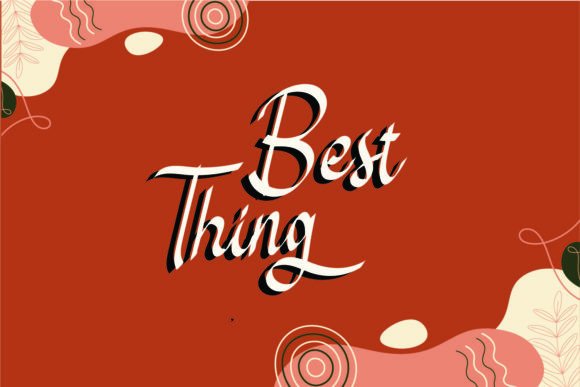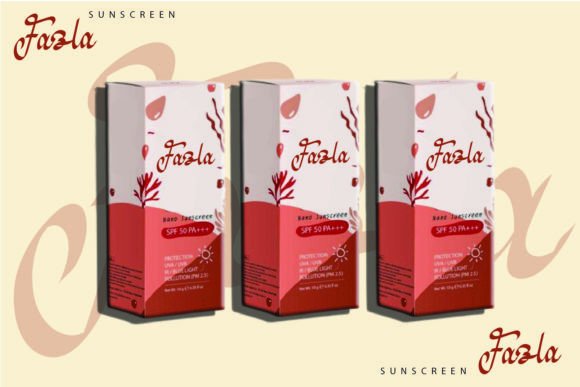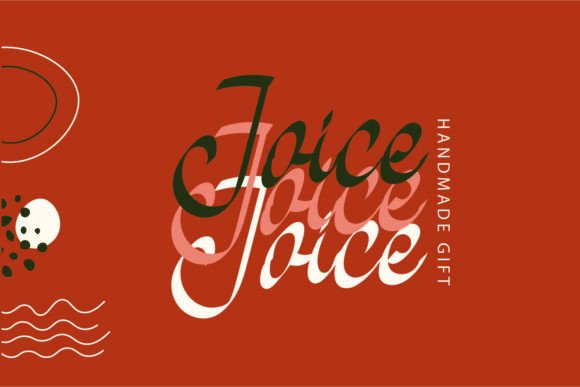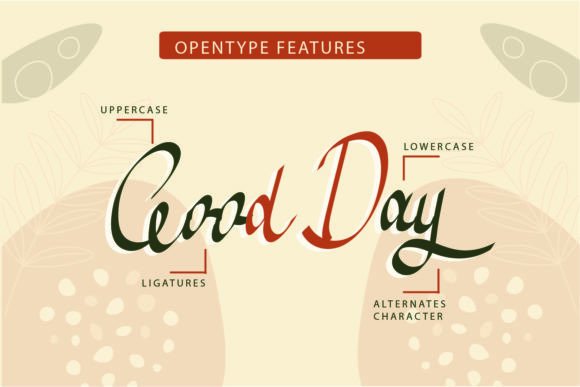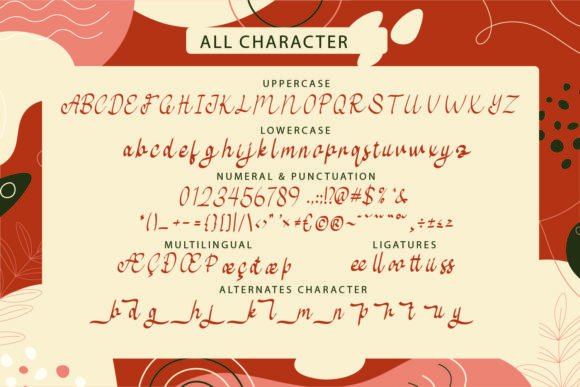
Introduction to Coopucake Font
Remember that moment when you’re brainstorming ideas for a creative project and you stumble upon the perfect design element that makes everything come together? It’s like a spark of inspiration that sets your imagination ablaze. For designers, finding that elusive element can be a game-changer. And today, we’re excited to introduce you to a game-changing design resource – the Coopucake Font.
With its modern and cool handwritten script style, the Coopucake Font is an absolute showstopper. Its incredibly distinct and timeless design makes it the perfect choice for adding a touch of elegance and sophistication to your designs. Whether you’re working on a branding project, a social media campaign, or a digital product, the Coopucake Font is sure to elevate your creative project to the next level.
Key Features of Coopucake Font
- The Coopucake Font is a high-quality, free design resource ideal for creative projects, offering a unique and playful touch.
- Available in a transparent background, making it easy to integrate into various design elements.
- Features a large character set, including uppercase and lowercase letters, numbers, and special characters.
- Coopucake Font is designed to be highly customizable, allowing designers to easily adjust the font’s appearance to suit their creative project’s needs.
Honest Review: Coopucake Font
I recently stumbled upon the Coopucake Font, and I’m excited to share my thoughts on this design resource. As a designer, I’m always on the lookout for high-quality fonts that can elevate my creative projects.
The Coopucake Font is a free download, which is a major plus in my book. I love that the creator has made this beautiful font available to the design community. The font itself is a gorgeous, hand-drawn design with a transparent background, making it perfect for a variety of uses.
- High-quality design: The Coopucake Font is beautifully crafted, with intricate details and a unique feel.
- Transparent background: This makes it easy to use the font on a variety of backgrounds and designs.
- Limited language support: The Coopucake Font may not be suitable for languages that require a wide character set.
- No bold or italic styles: The font only comes in regular style, which may limit its use in certain situations.
Overall, I’m impressed with the Coopucake Font. While it has some limitations, its unique design and transparent background make it a valuable addition to any designer’s toolkit. If you’re looking for a high-quality font for your creative project, the Coopucake Font is definitely worth checking out.